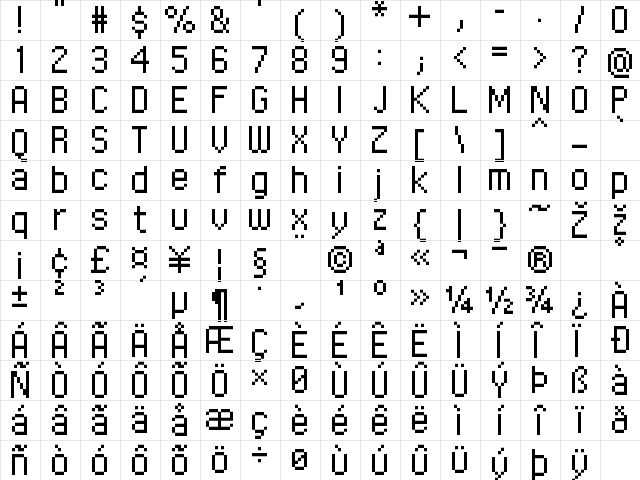
FFF Executive Extended Regular
Design Context for FFF Executive Extended Typeface
FFF Executive Extended offers clean, dependable letterforms without strong stylistic allegiance, making it a practical choice for designers who need flexibility.